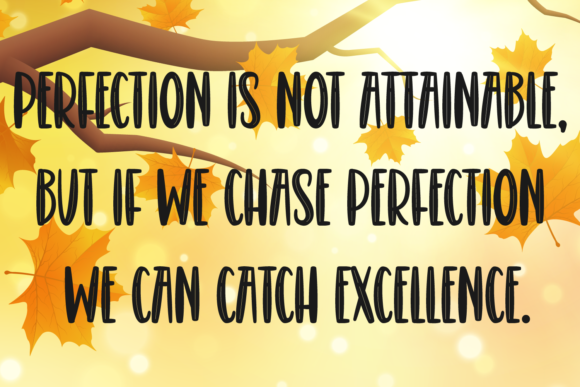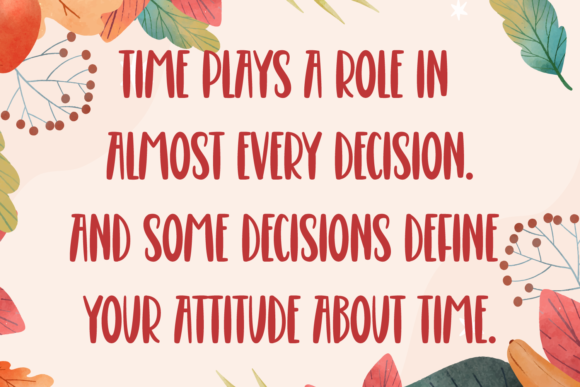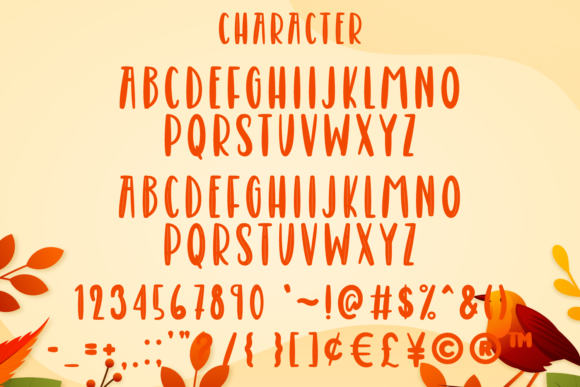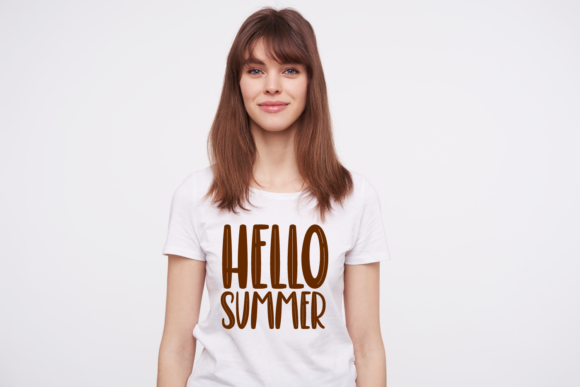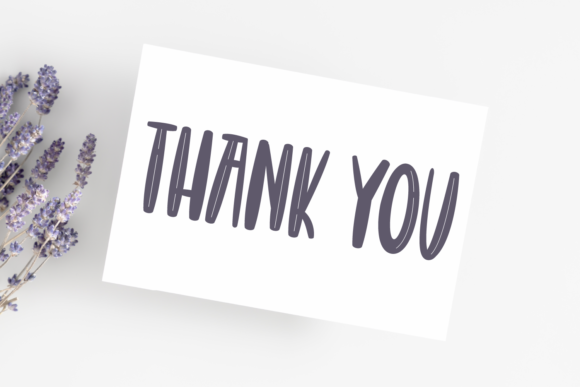
Introduction to Cute Auntumn Font
Cute Auntumn is a playful and fun display font.
Suitable to a wide variety of designs due to its friendly and cute style, this font has the potential to brighten up each of your creations .
Key Features of Cute Auntumn Font
Why Choose Cute Auntumn Font?